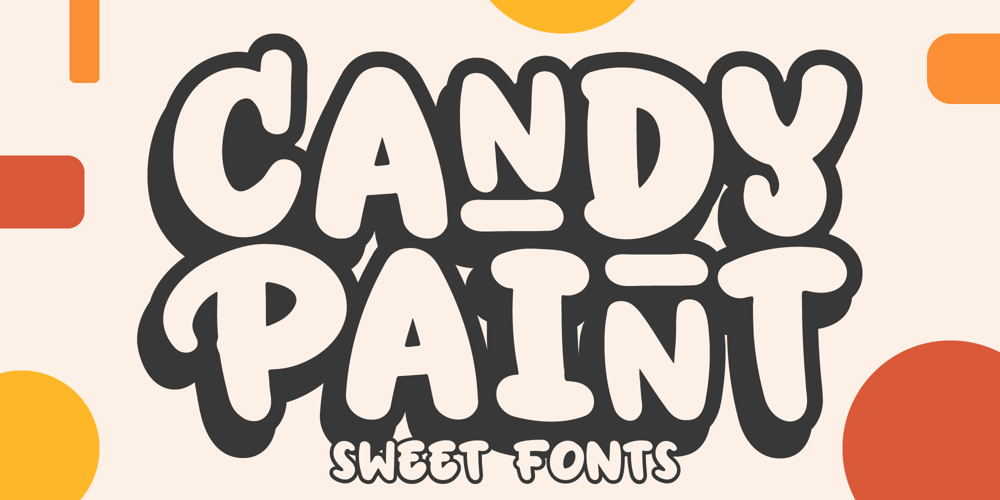
Candy Paint Font Family was designed by Stefie Justprince and published by Crumphand. Candy Paint contains 4 styles and family package options. Introducing, Candy Paint fonts.Candy Paint have a unique shape, rounded and fun.Comes with 4 style Regular, Outline and Extrude,then can mix and match with Stylistic Set.What’s Included Inside The Fonts ? Uppercase Lowercase Symbols Numerals Stylistic Set 1 Stylistic Set 2 Stylistic Set 3 Stylistic Set 4 European Multilingual Thank you, Regards!